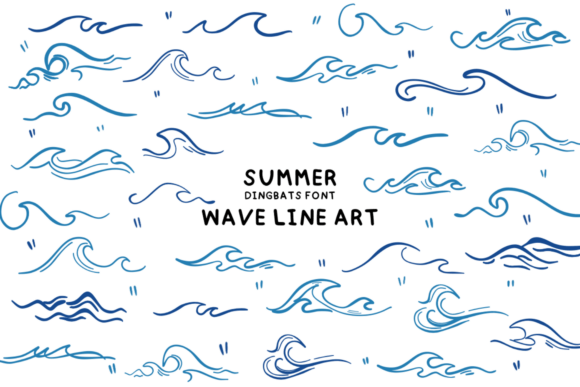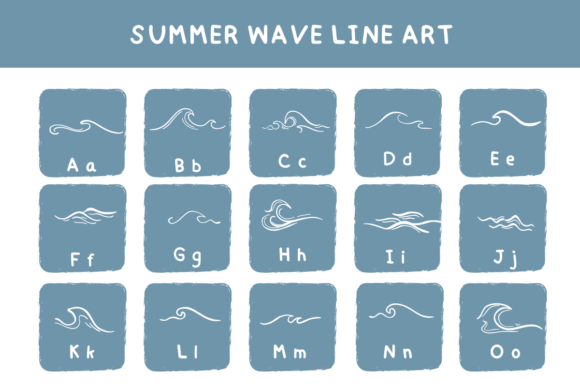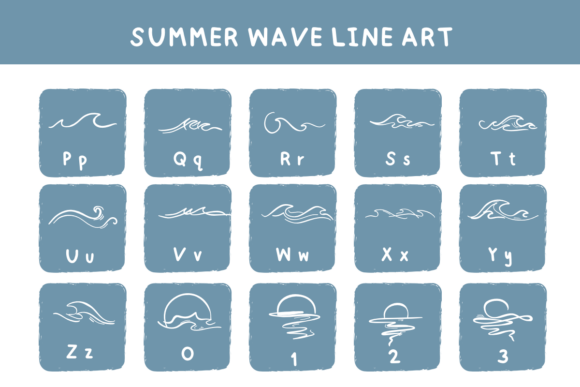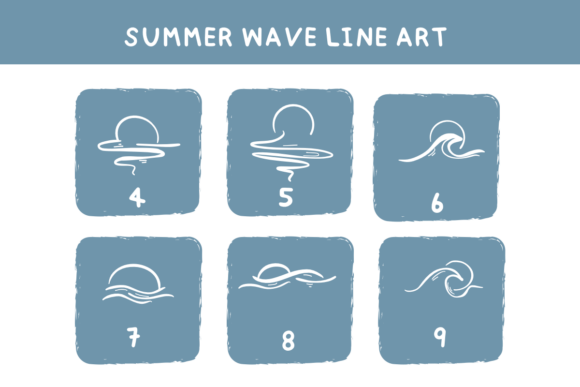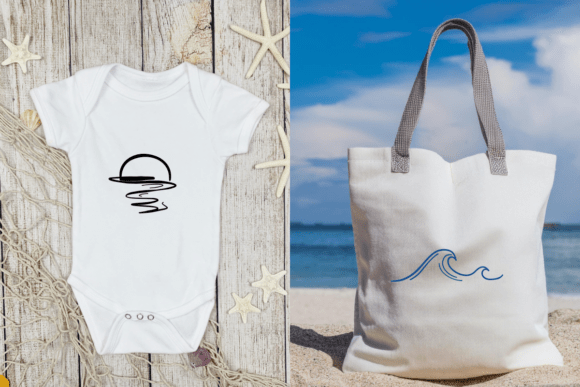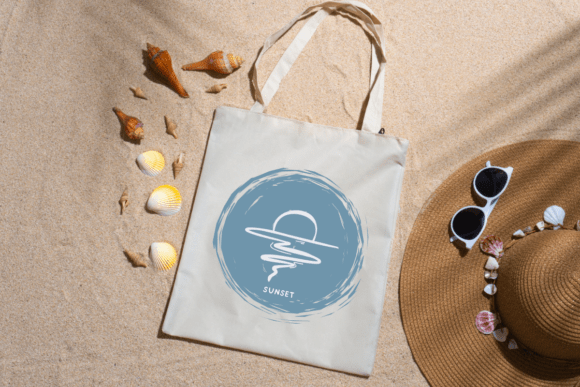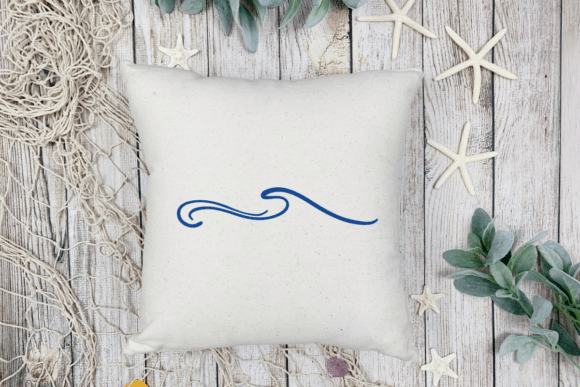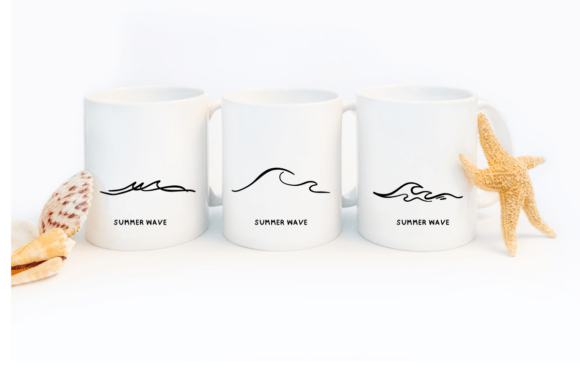
Summer Wave Line Art Font
Unleash your creativity with Summer Wave Line Art, an artistic dingbat font designed to inspire. Perfect for infusing a playful touch to your scribbled notes or giving an imaginative flare to your greeting cards, Summer Wave Line Art goes beyond the ordinary. With its versatility, it can also add a unique charm to a wide range of designs from eye-catching banners and compelling content to stylish mugs, bespoke cards, trendy shirts and elegant stationery. Even your social media posts can get a dash of artistic whimsy using Summer Wave Line Art Elevate your design game with this whimsical font.